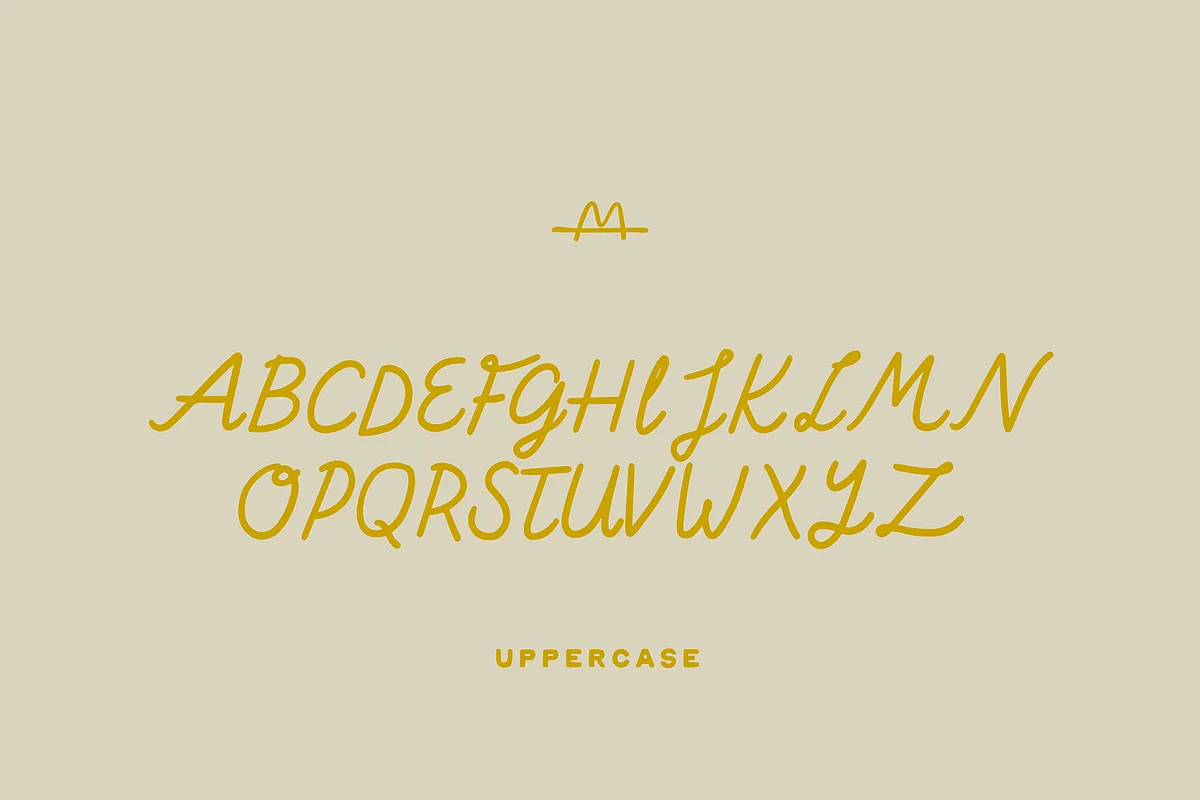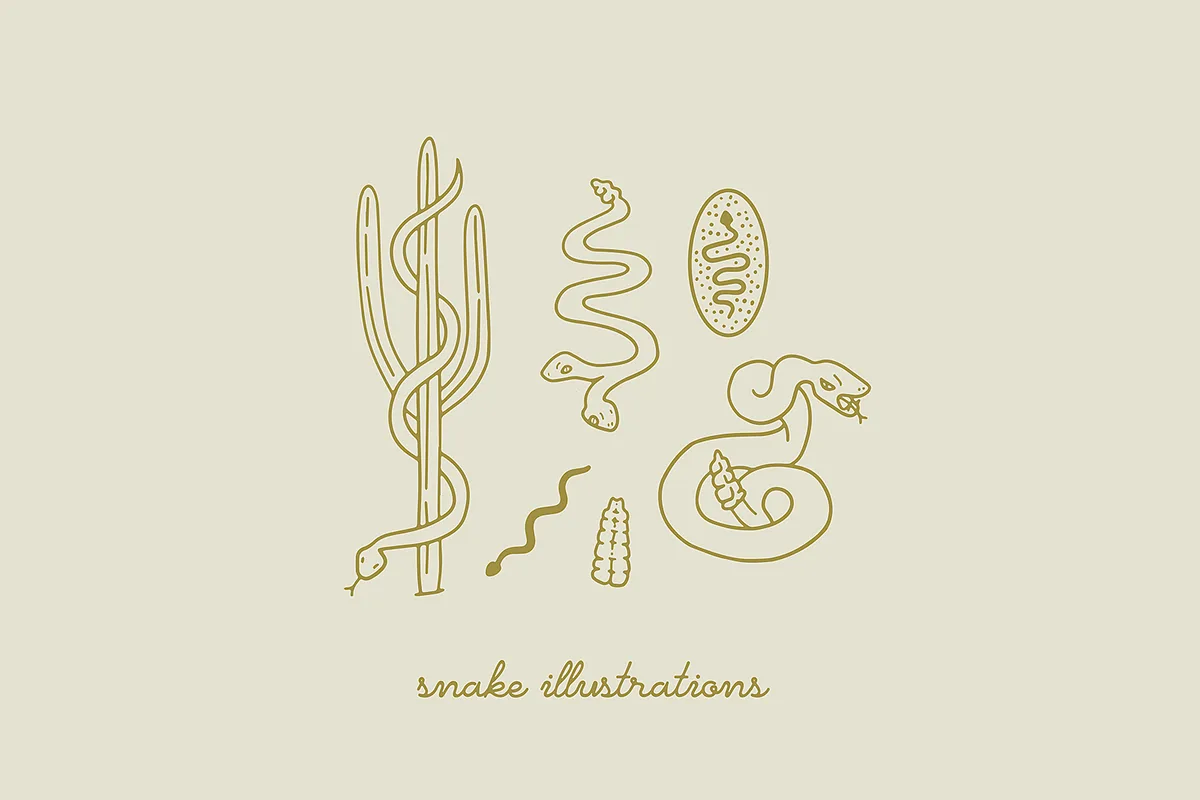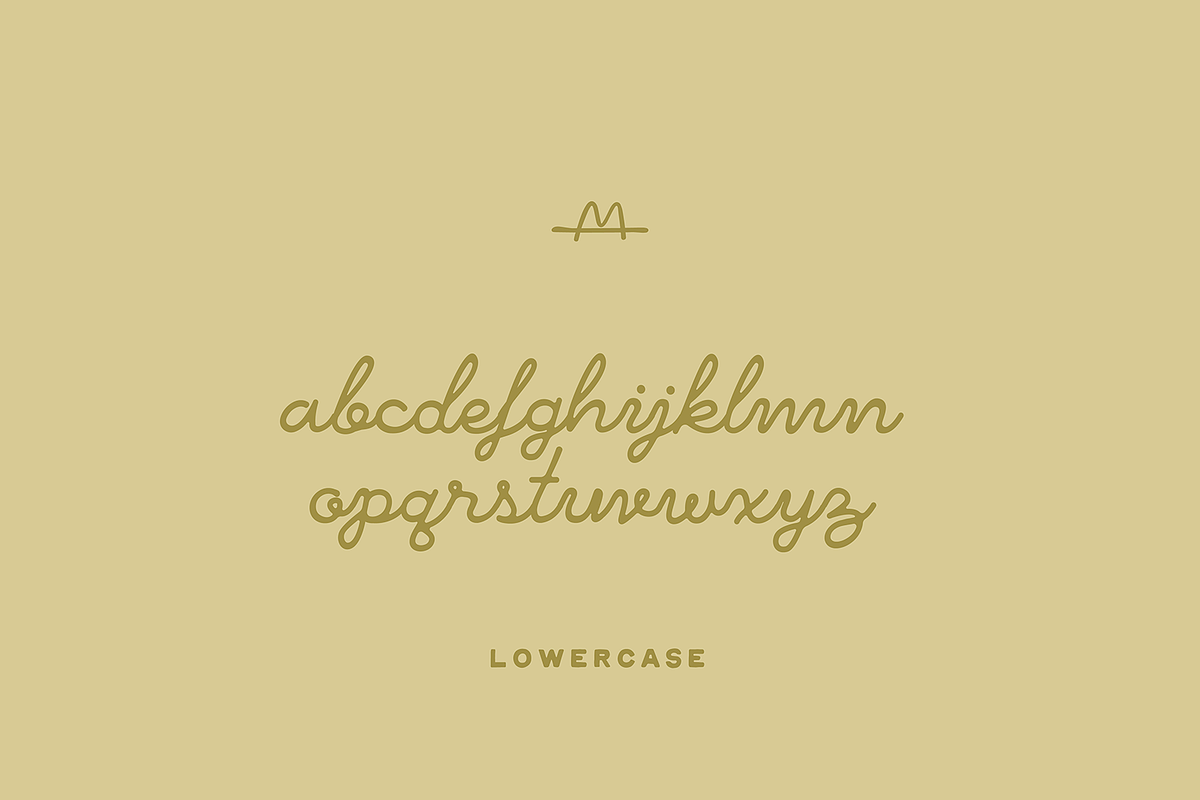
Rattlesnake is a hand lettered script typeface for all your (western) needs. You know that feeling when night is falling, the fire is glowing, and the stories are flowing?
It is perfect for headings, logos, business cards, printed quotes, wedding invitations, cards, packaging, and your website or social media branding.